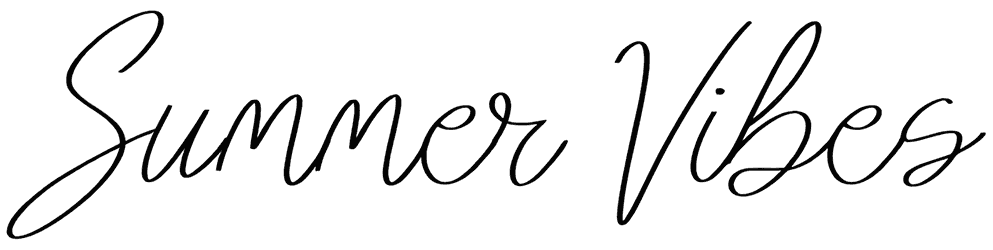
Summer Vibes Font
If your summer design misses a font with a human character, add Summer Vibes. This handwritten font has a special elegance that can communicate well with any viewer and not bother their eyes with excessive flourishes of broken elements.
So if you are looking for a clean and safe way to convey your message that will never be repeated, keep summer vibes in your collection. This font without numbers is ideal for designing wedding cards, business cards, and stationery.